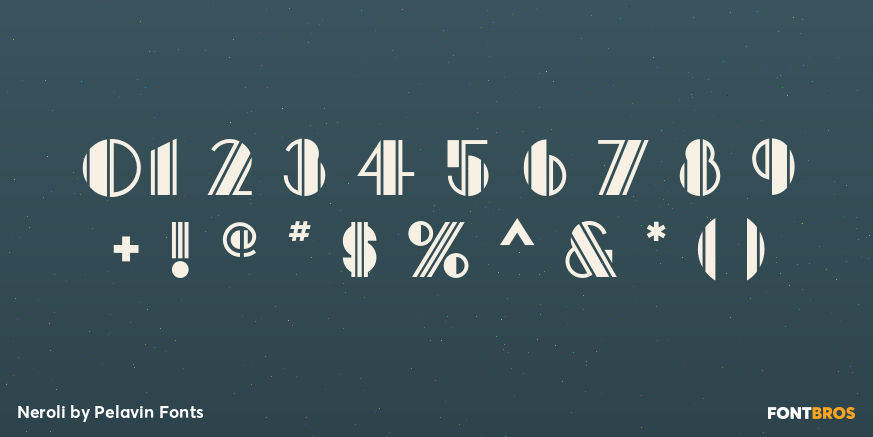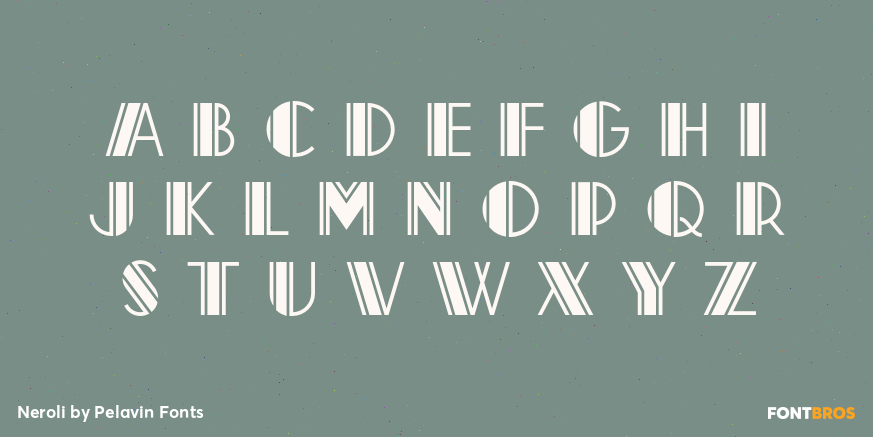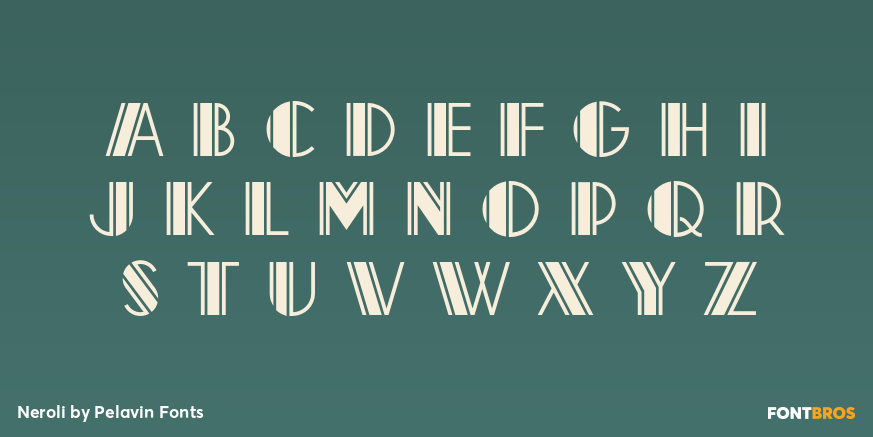
Neroli
Font Family by Pelavin Fonts
Buy NowNeroli is an oil distilled from the blossom of the bitter orange tree and used extensively in perfumery. Its scent is sweet, honeyed with green and spicy facets. The eponymous OpenType font is of tidy Art Deco construction and will lend its own unique bouquet to any typographic composition.